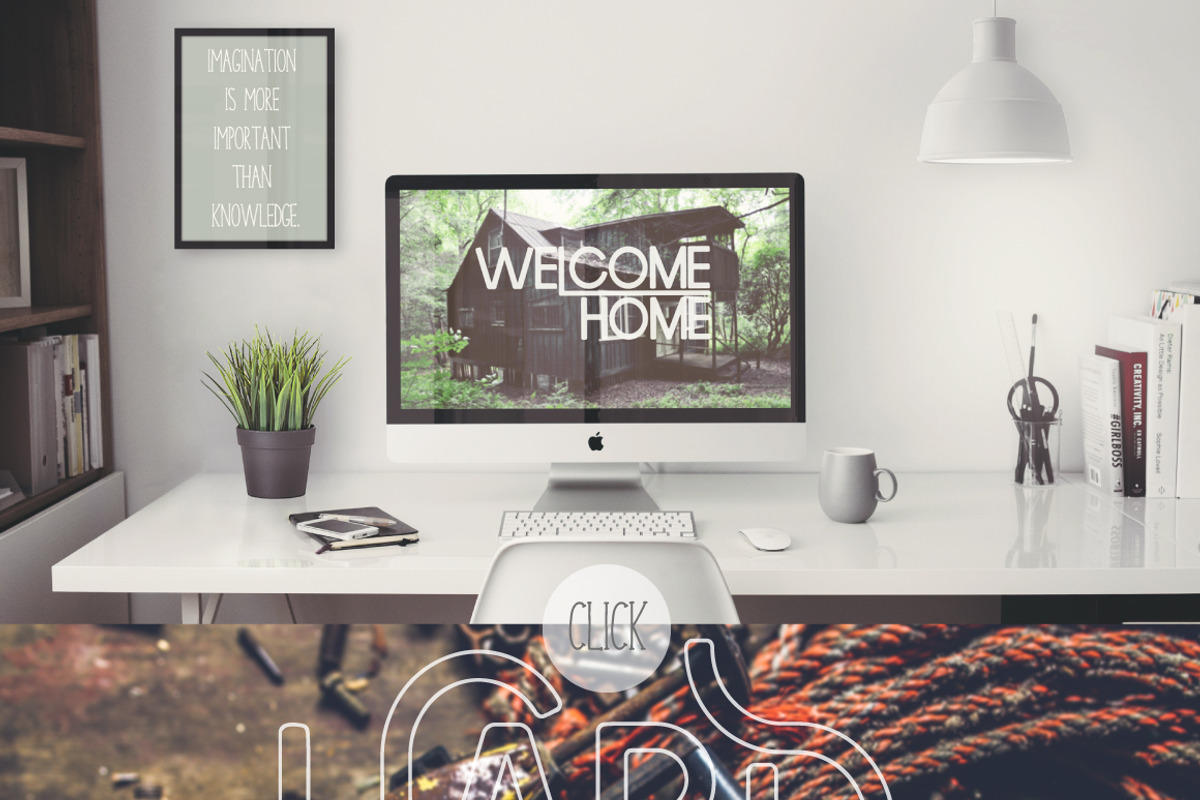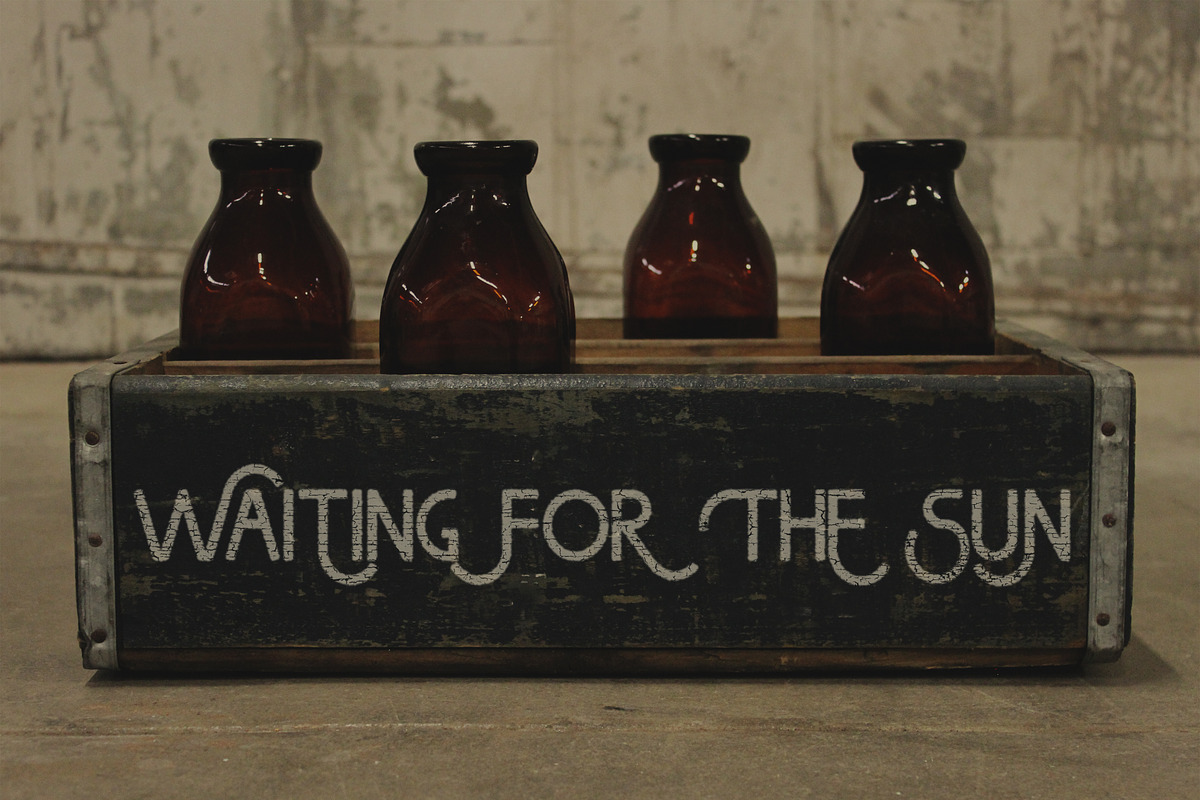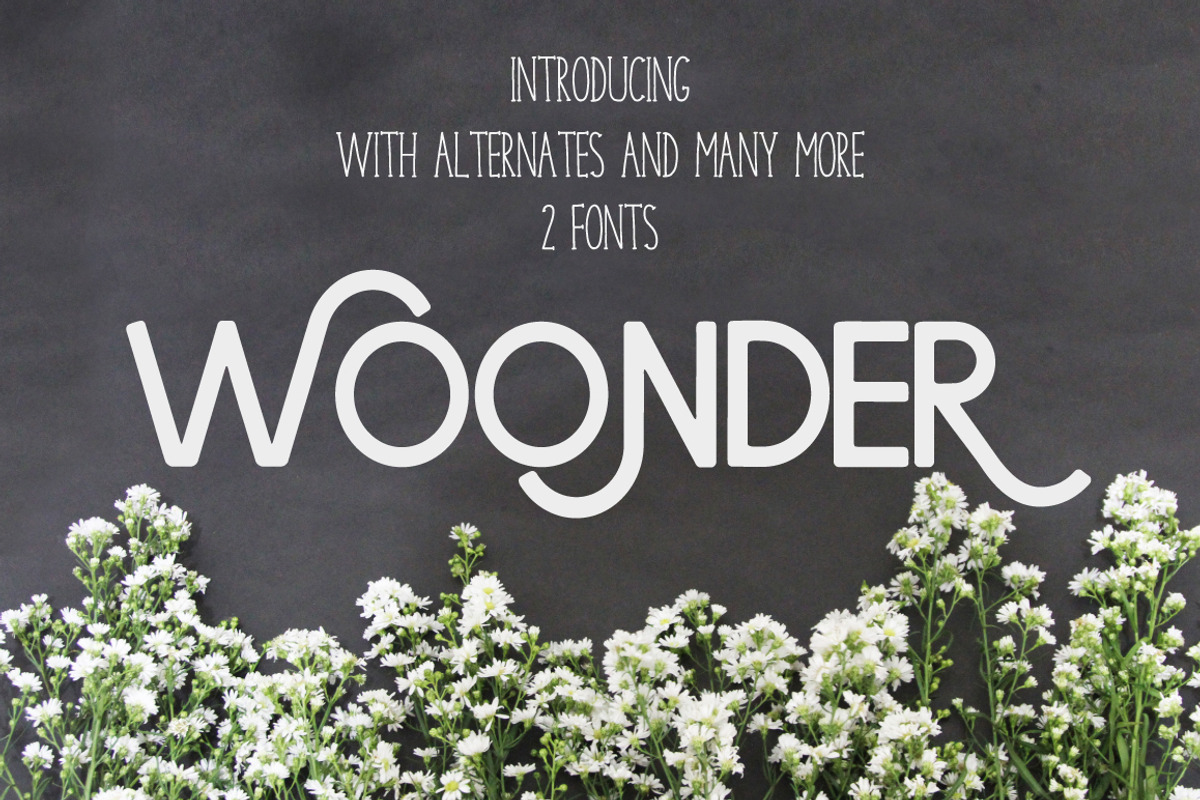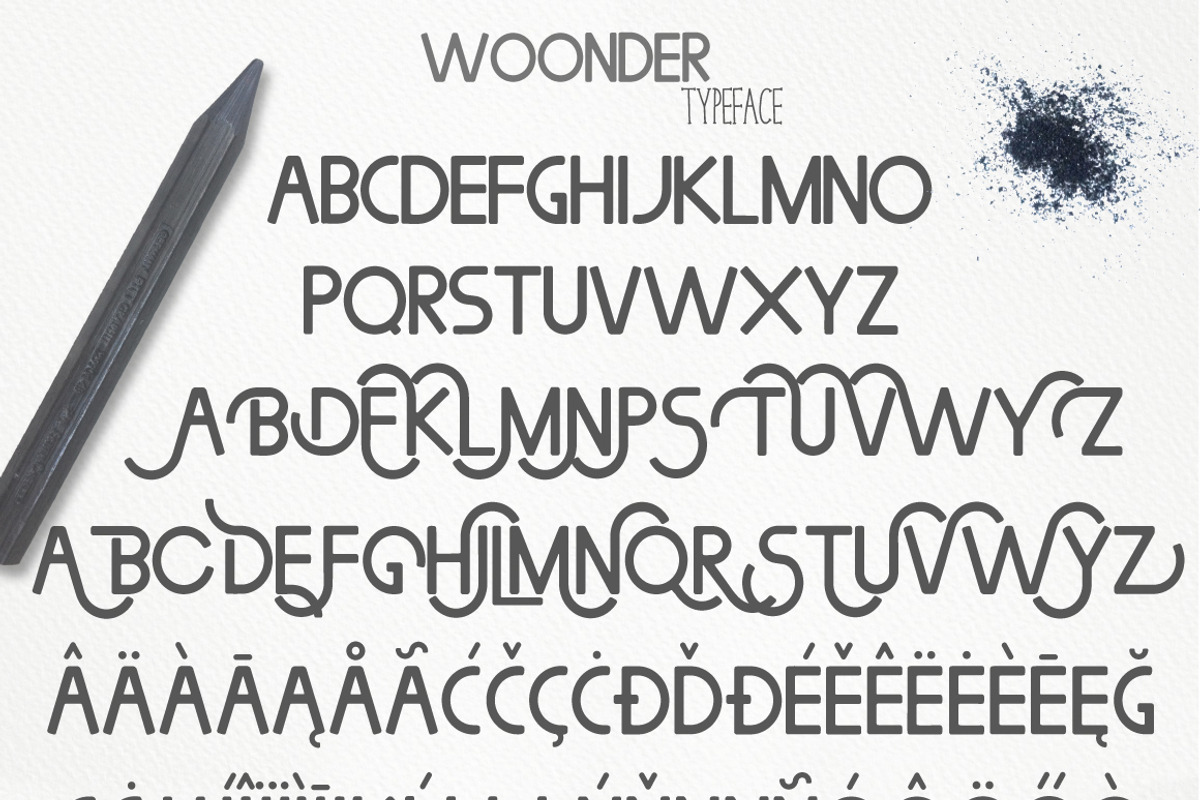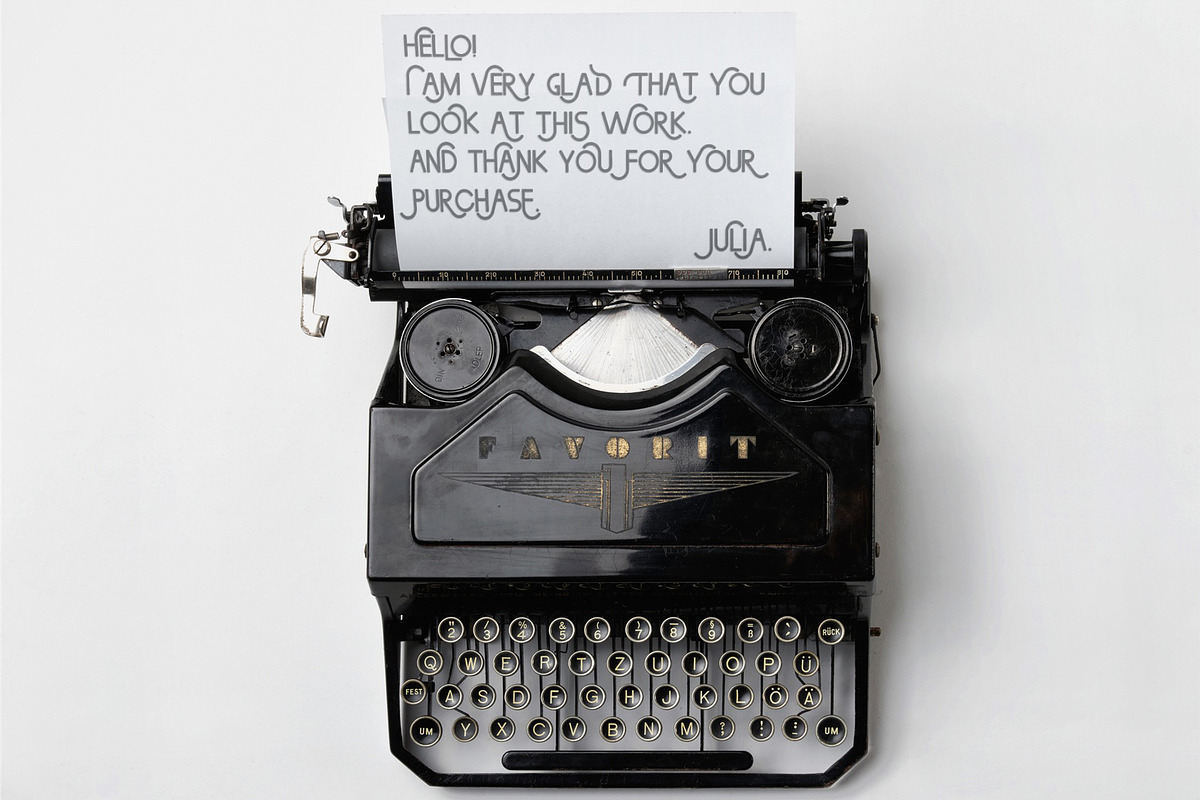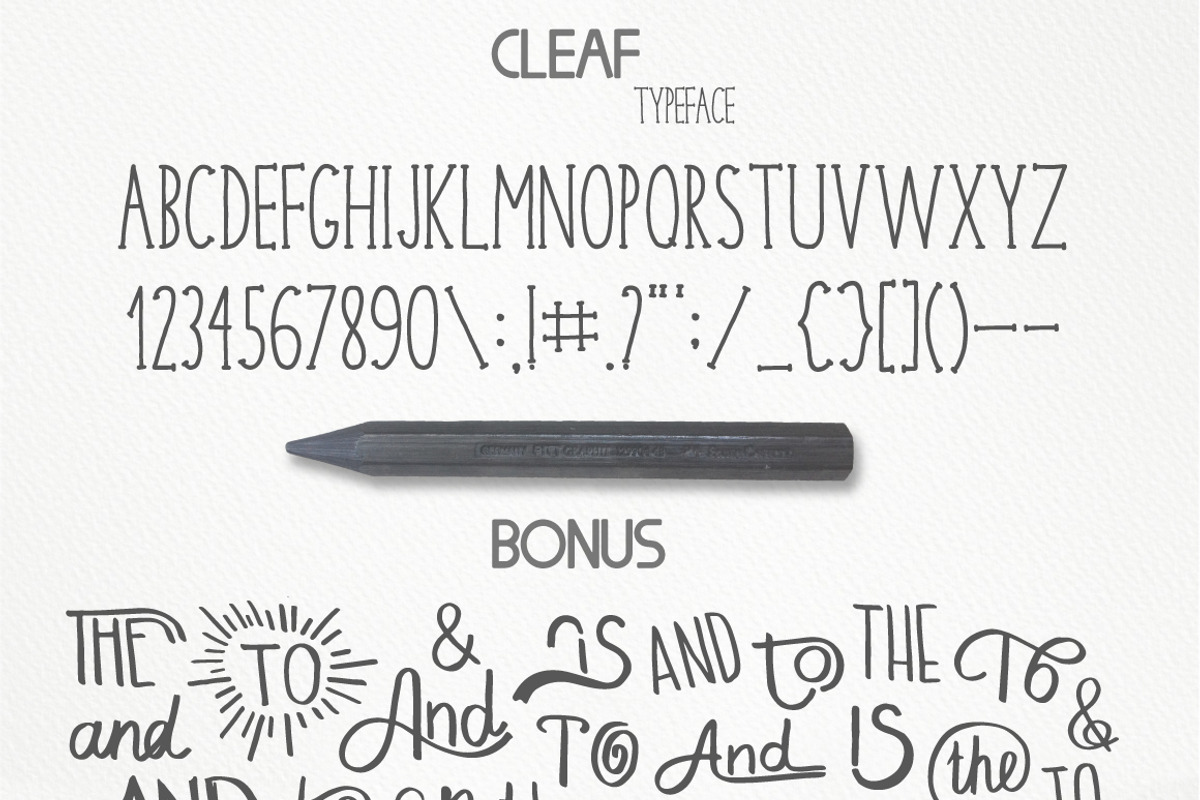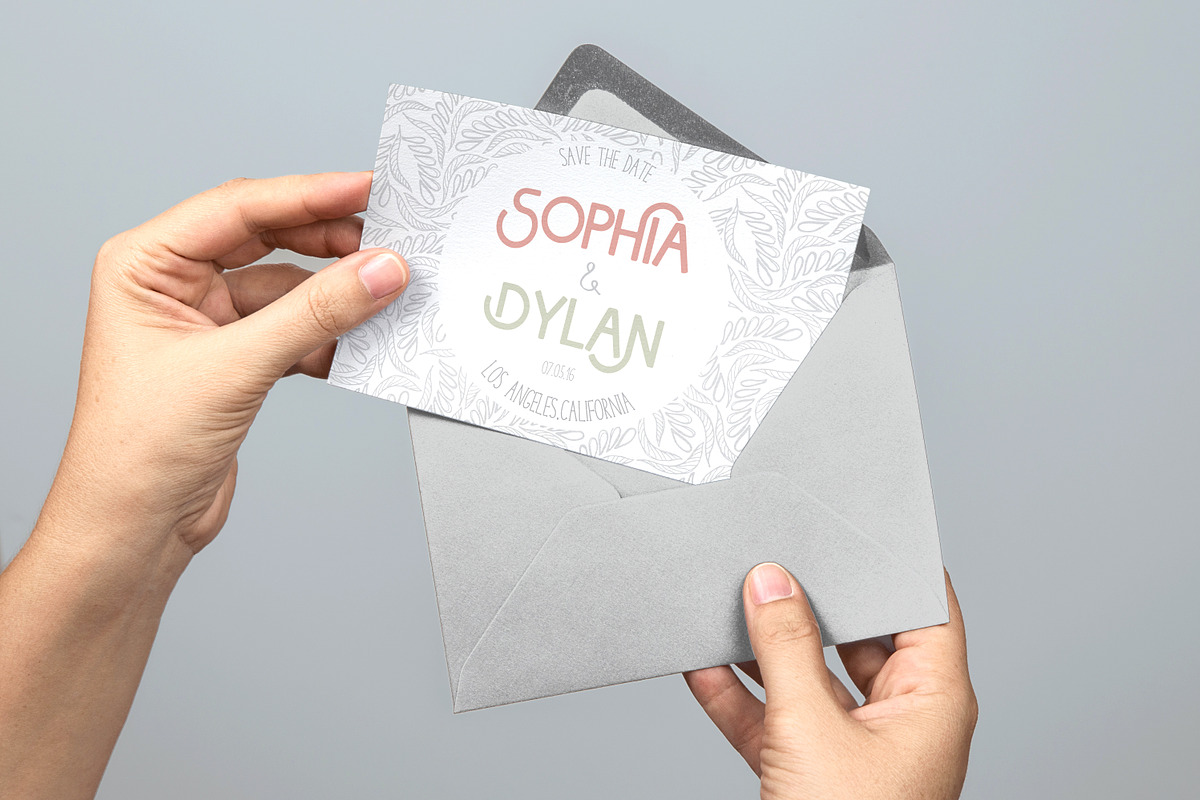
Woonder [2 Font]
It's Woonder Cleaf!
It's 2 handwritten fonts which perfectly match with each other and contains free catchwords!
You need to make t-shirt design or invitation? Maybe you want to make poster, send a postcard to friend or a pillow? Or if you have a small shop or a cafe? Use this font for your design.
This handwritten fonts is perfect for: logos, wedding invitations, prints, quotes, stationary, decoration and etc.